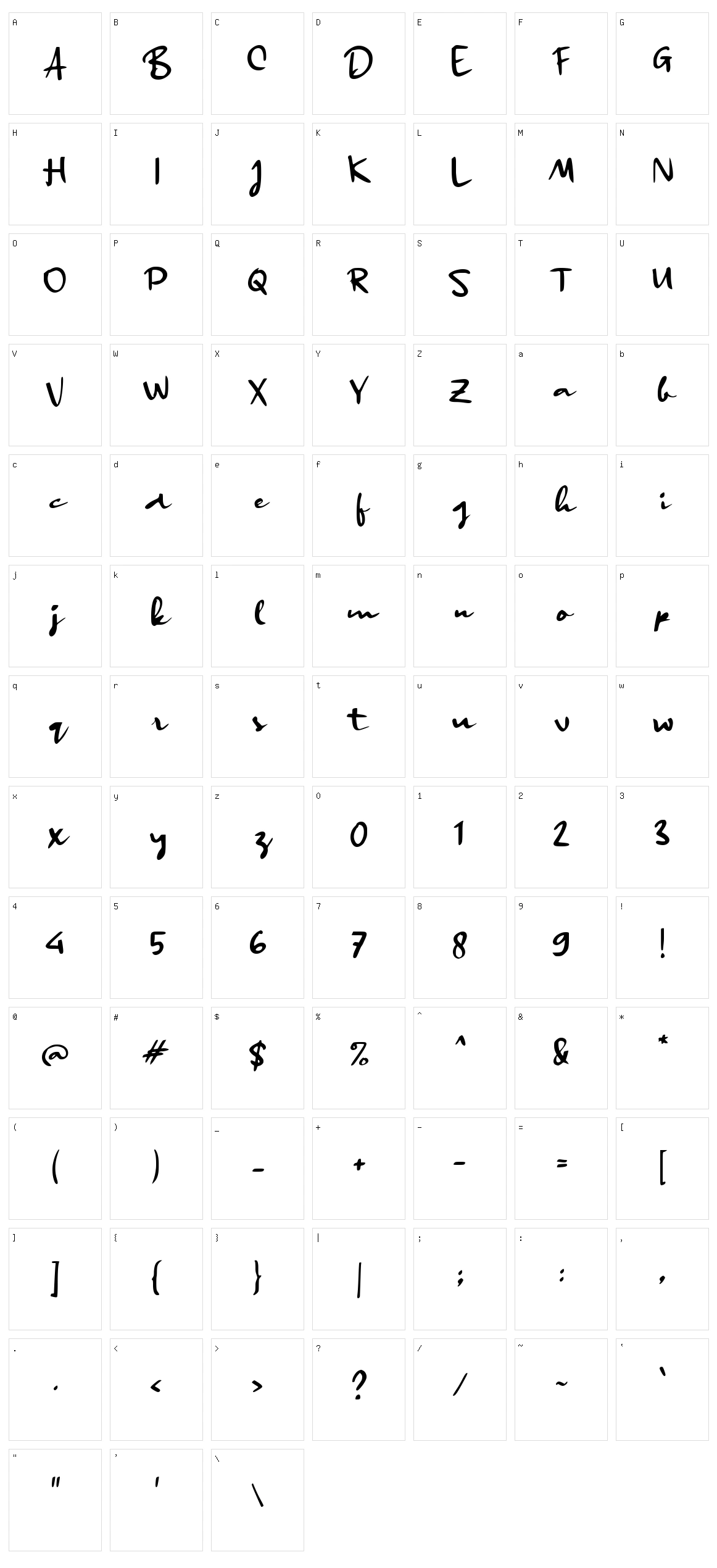
The free font c Cikeas Signature is carefully designed by wep, showcasing a thoughtful balance of creativity and usability and falls under the Script font style. When you download the ZIP file, it contains only 12.08 KB of font files, making it lightweight and quick to download. Please review the license details below to understand permitted usage and distribution rights. If license information is not available, we recommend using this font for personal projects only or contacting the author directly for commercial usage permissions.